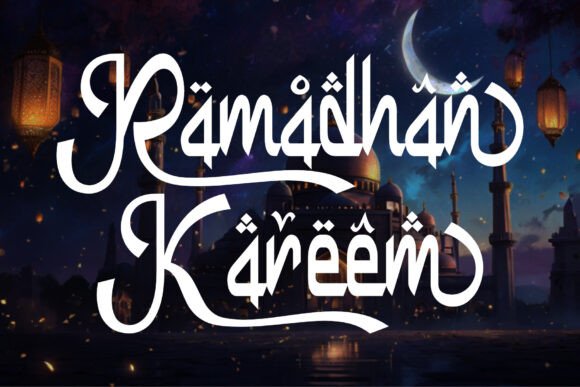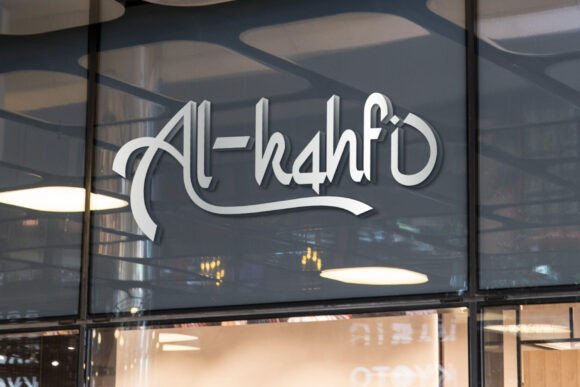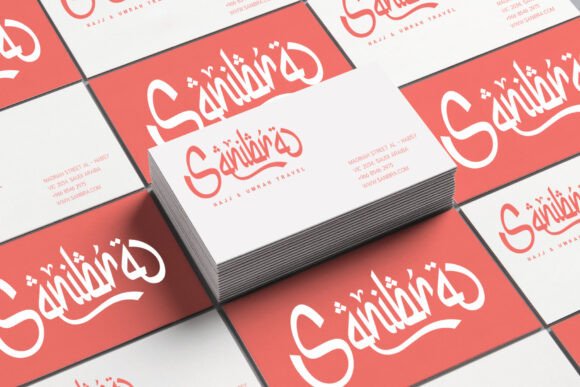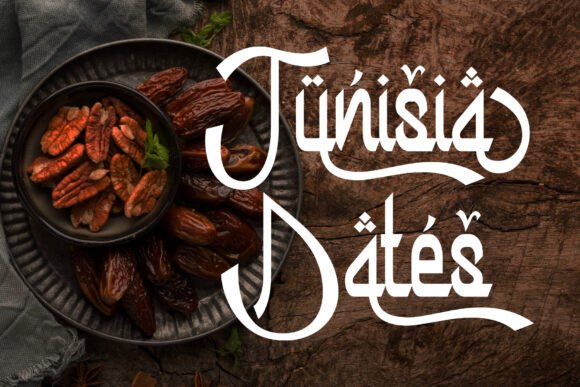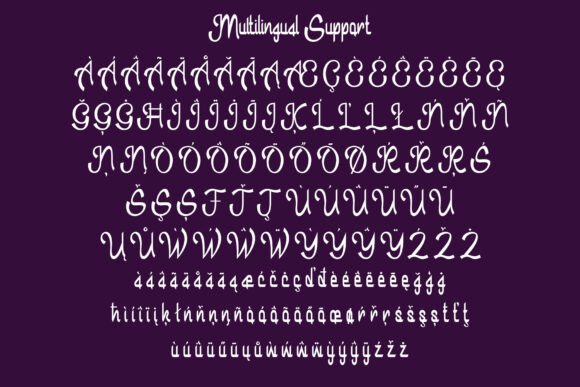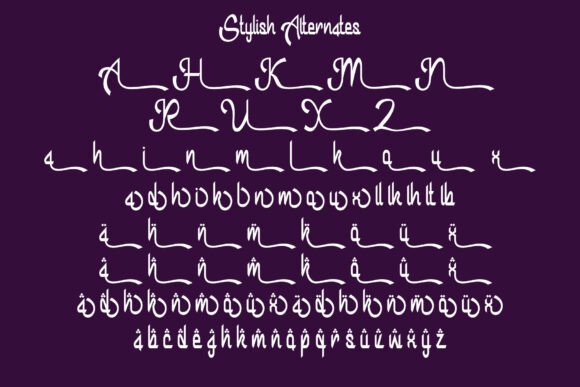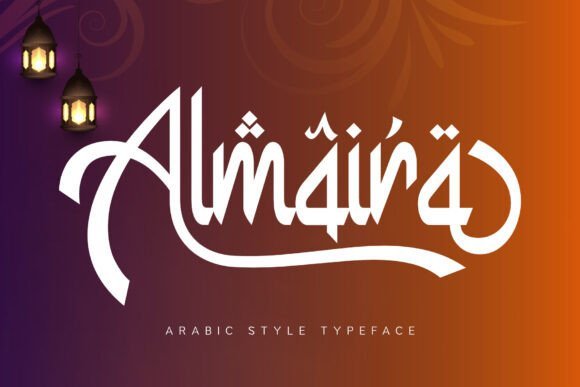
Designing for the Holy Month: Introducing Almaira Font
As the days grow shorter and the nights grow longer, the anticipation builds up for one of the most sacred months of the Islamic calendar – Ramadan. It’s a time when designers and creatives alike seek to capture the essence of this holy period through their work. For me, it was during a late-night design session, surrounded by the soft glow of screens and the faint scent of coffee, that I stumbled upon a font that would change the way I approach Ramadan-themed designs – the Almaira Font.
This elegant and bold Arabic script font is designed to evoke the spirituality and sacredness of Ramadan. With its distinctive letterforms and intricate details, Almaira Font is a treasure trove for designers looking to add a touch of authenticity and reverence to their projects. Its versatility, offering alternate uppercase and lowercase characters, makes it a valuable addition to any designer’s toolkit.
Almaira Font Key Features
- Font Family: Almaira is a unique, high-quality font family designed for various applications.
- Unique Characteristics: Almaira features a distinctive, elegant design with intricate details, making it suitable for high-end applications such as luxury branding and premium publishing.
- Font Styles: Includes multiple font styles, including Regular, Bold, Italic, and Bold Italic, for added flexibility.
- Character Set: Supports a wide range of languages, including Latin, Cyrillic, and Arabic, making it a versatile option for global applications.
Almaira Font Review
Overall, I think the Almaira font is a great addition to any designer’s toolkit. Here are some of its strengths:
- ✨ Unique and elegant script style that adds a touch of sophistication to any design
- ✨ Highly legible, making it perfect for body text and titles
- ✨ Supports a wide range of languages, making it a great choice for multilingual designs
However, like any font, Almaira has its limitations:
- ⚠️ Limited font weight options, which may limit its use in certain design scenarios
- ⚠️ May not be the best choice for small text sizes due to its script style
- ⚠️ Some users may find the font too ornate or distracting, depending on their design style
Overall, I think the Almaira font is a solid choice for designers looking for a unique and elegant script style. While it may have some limitations, its strengths make it a great addition to any design arsenal. With a little creativity and experimentation, I think designers can get the most out of this beautiful font.
Tips for Getting the Most Out of Almaira Font
1. Experiment with different font sizes and styles to create visual interest.
2. Use Almaira Font in combination with other fonts to create a unique and harmonious design.
3. Take advantage of the font’s advanced features, such as ligatures and swashes, to add a touch of elegance to your design.
Common Use Cases for Almaira Font
2. Luxury brand logos and packaging.
3. High-end advertising and marketing materials.